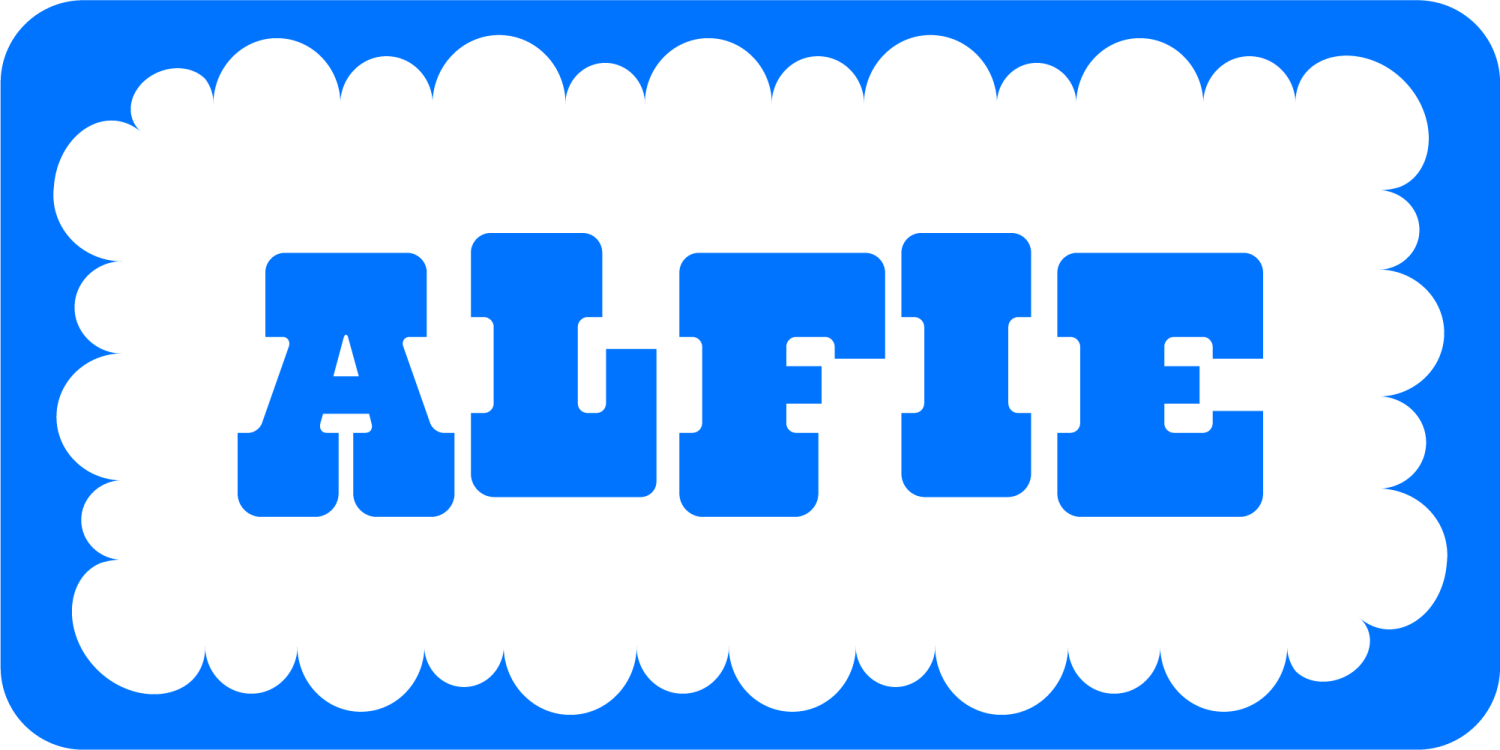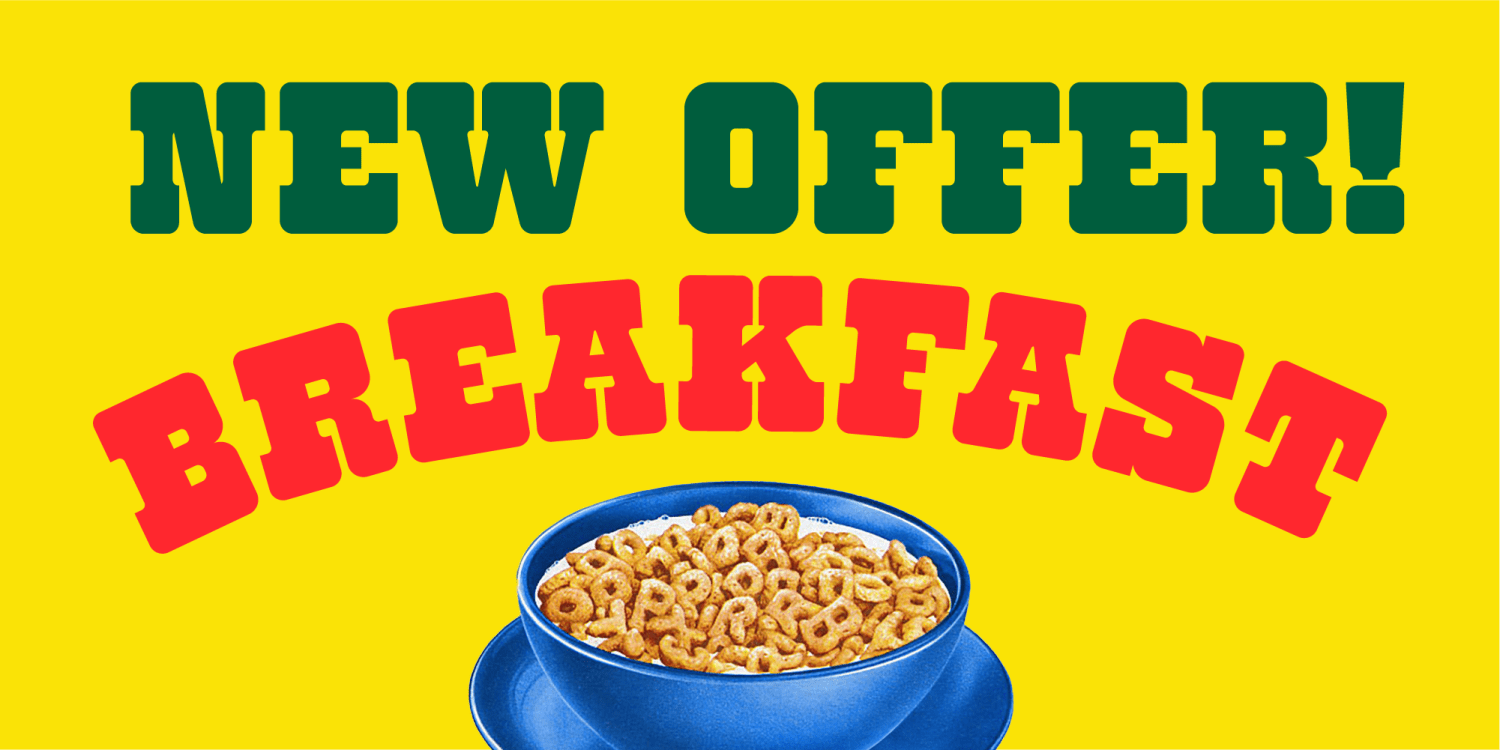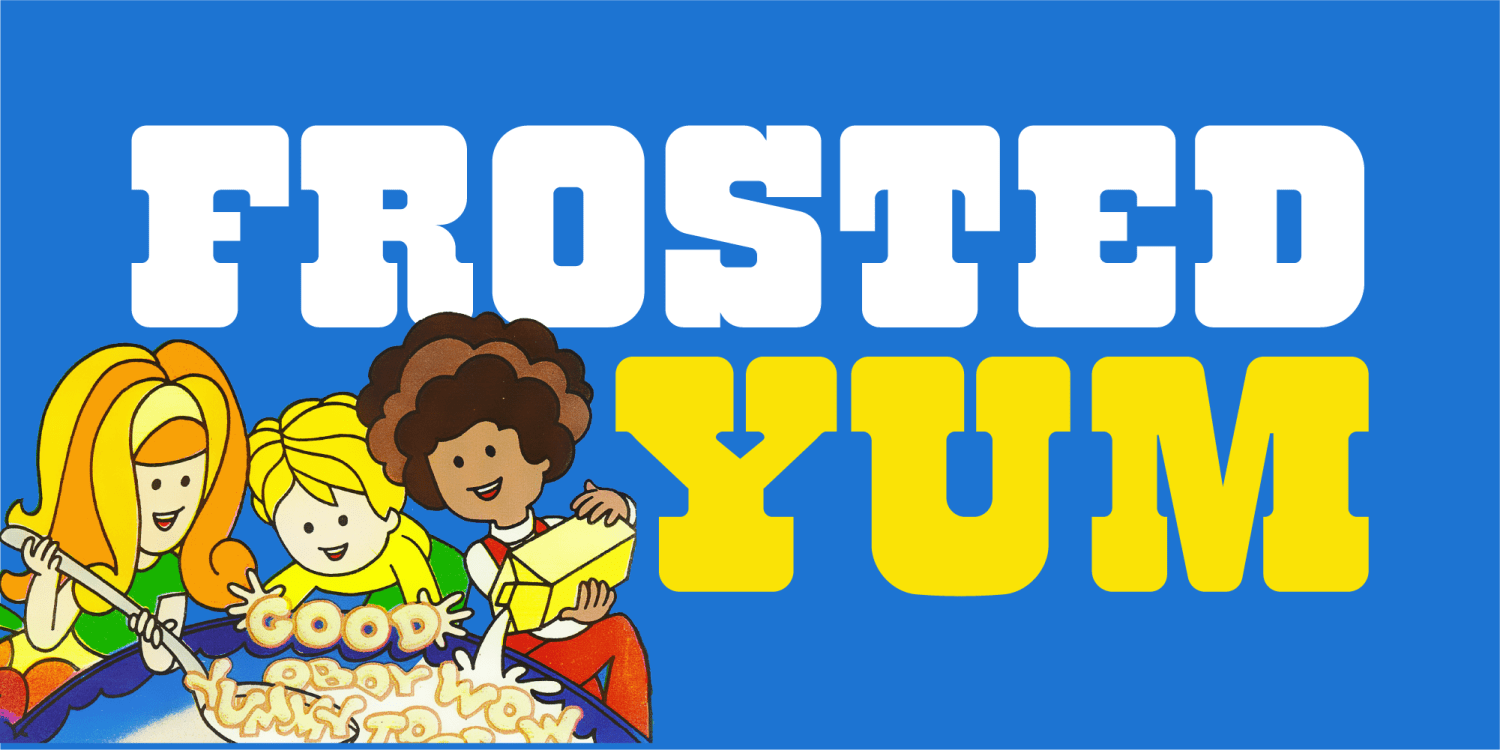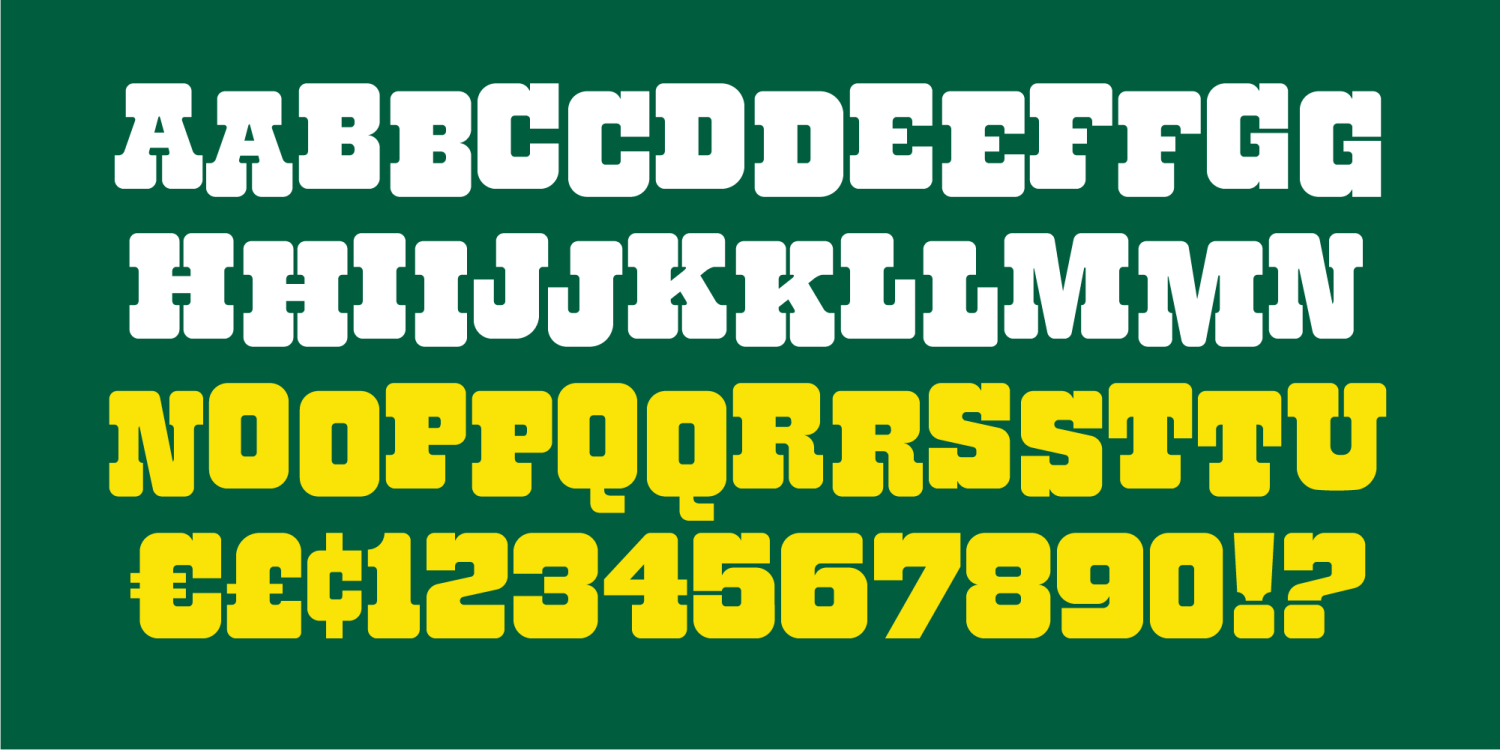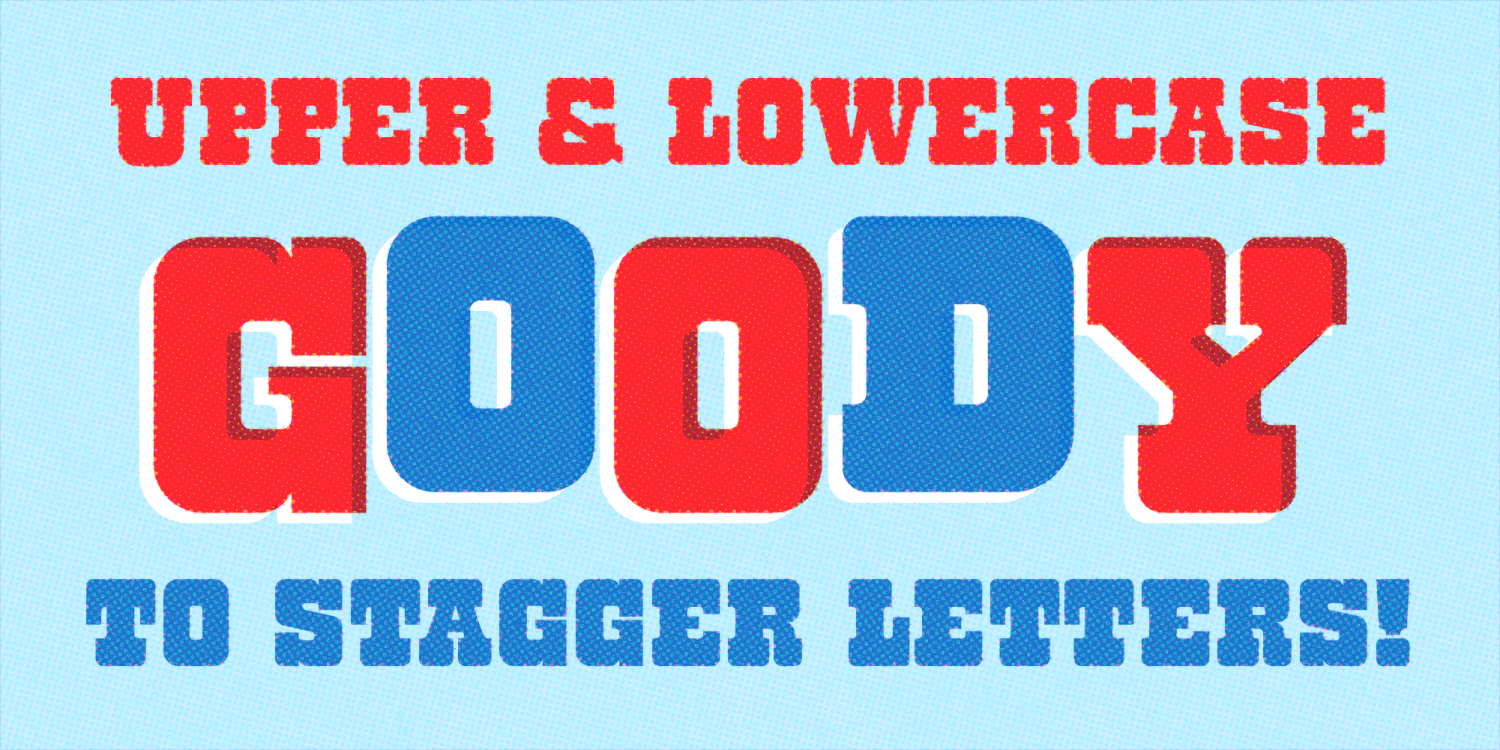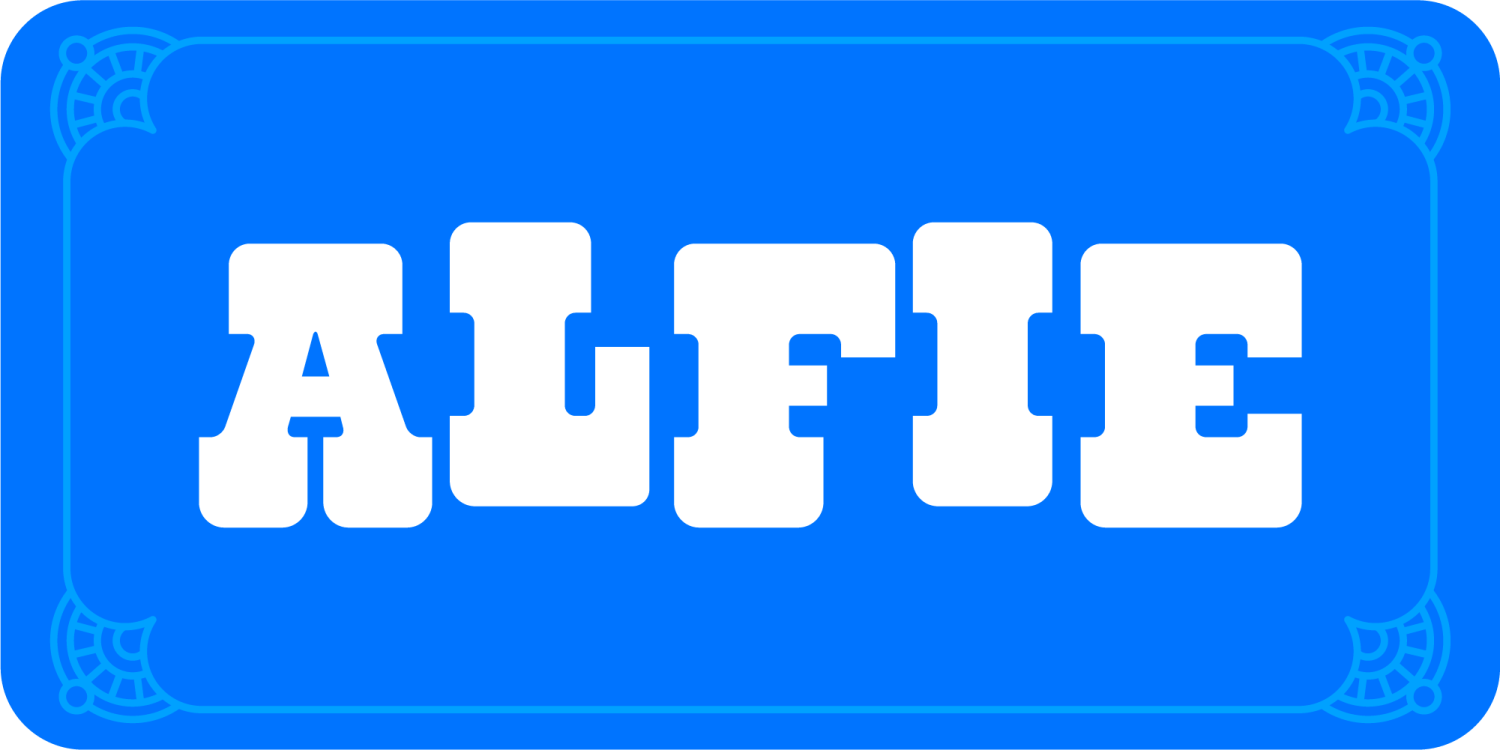
Introducing Alfie, the font that brings a taste of the wild west to your words with a sprinkle of 1970s breakfast cereal nostalgia! Imagine lassoing letters with the soft edges of a cozy morning bowl of your favorite cereal. Alfie rustles up the perfect blend of whimsy and frontier flair, like a cowboy riding into the sunrise on a marshmallow cloud. Saddle up your sentences with Alfie, where every letter feels as warm and comforting as a spoonful of your go-to morning munchies.